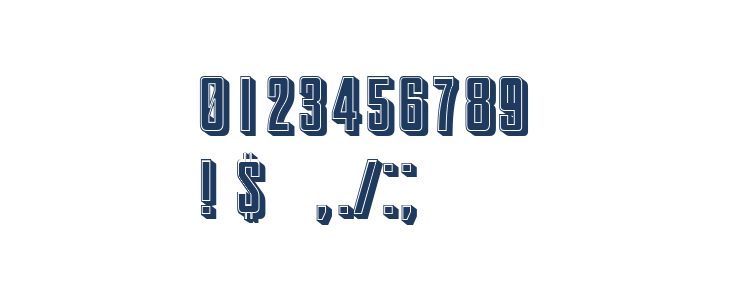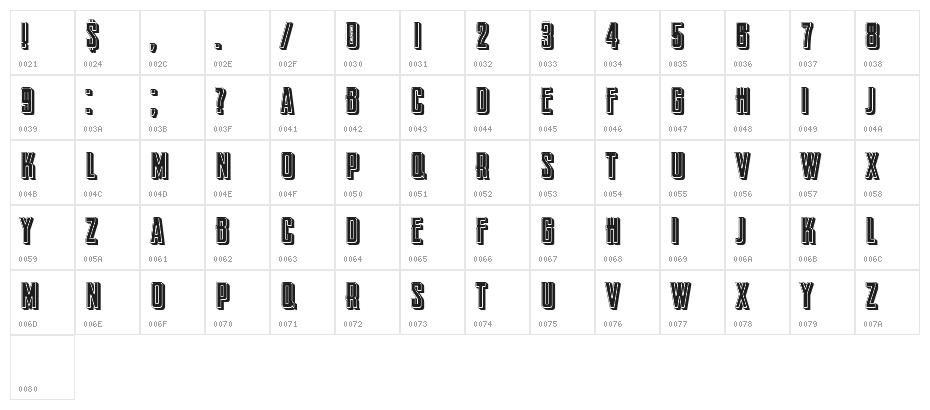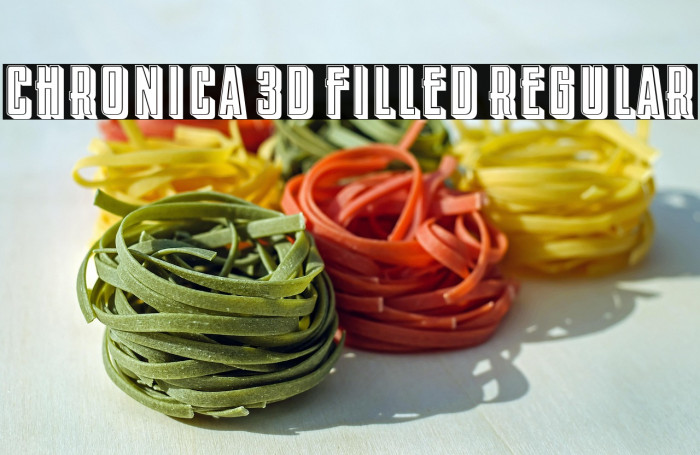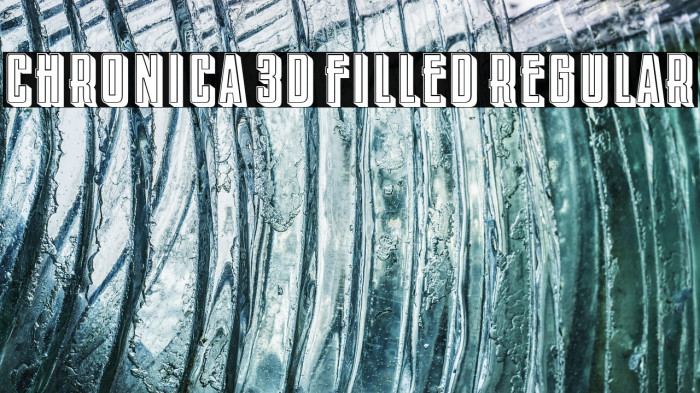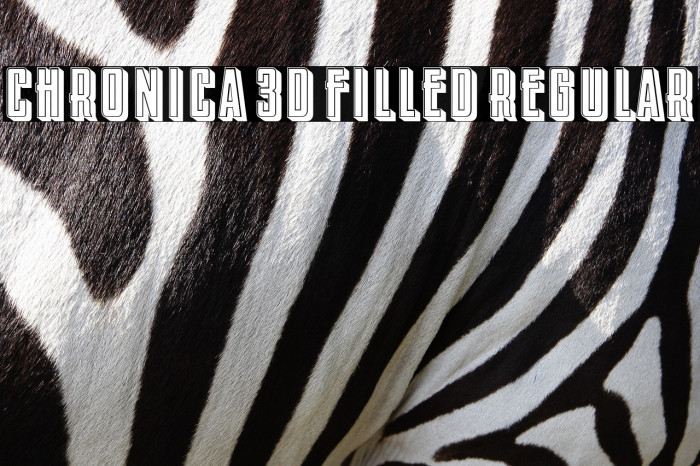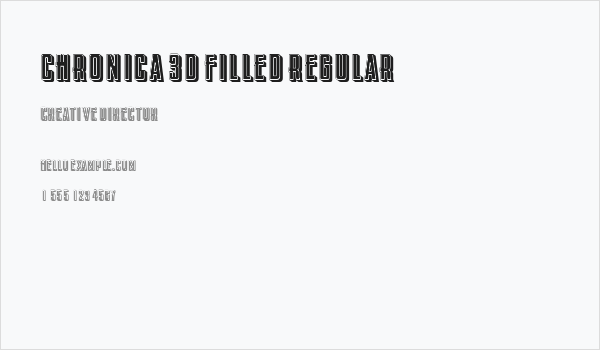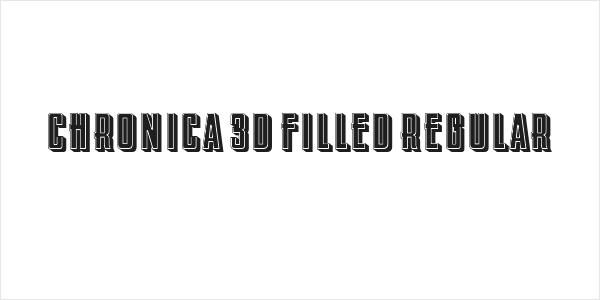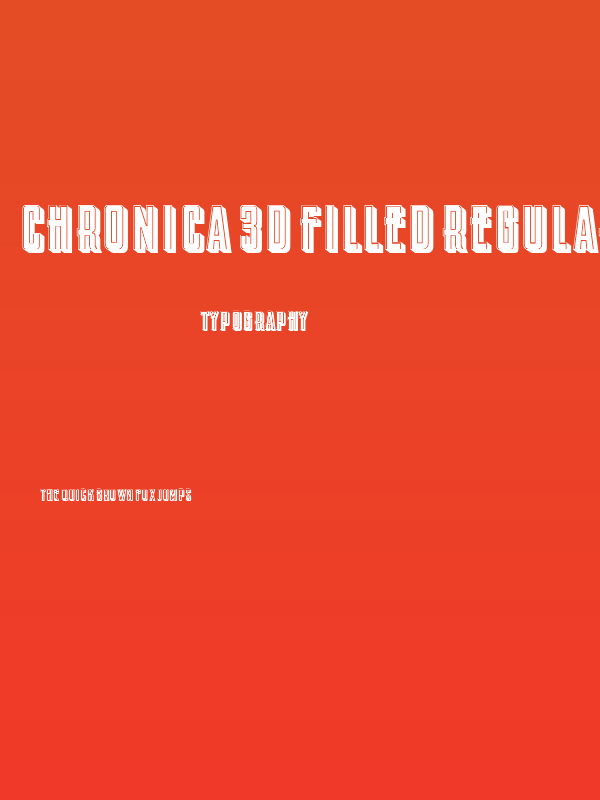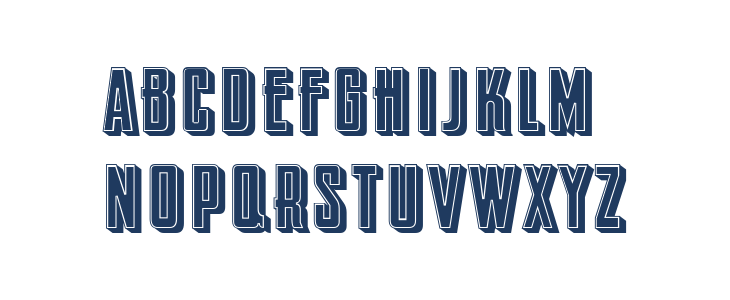
Chronica 3D Filled Regular Font
Chronica 3D Filled Regular Description
This font features a bold, three-dimensional design with a filled interior, creating a striking and impactful appearance. The uppercase letters are prominently displayed with a shadow effect that gives depth and a sense of movement. The numbers and special characters maintain the same bold style, ensuring consistency across all characters. The font's geometric structure and clean lines make it ideal for attention-grabbing headlines and titles. Its unique 3D effect adds a modern and dynamic touch, making it suitable for projects that require a strong visual presence.